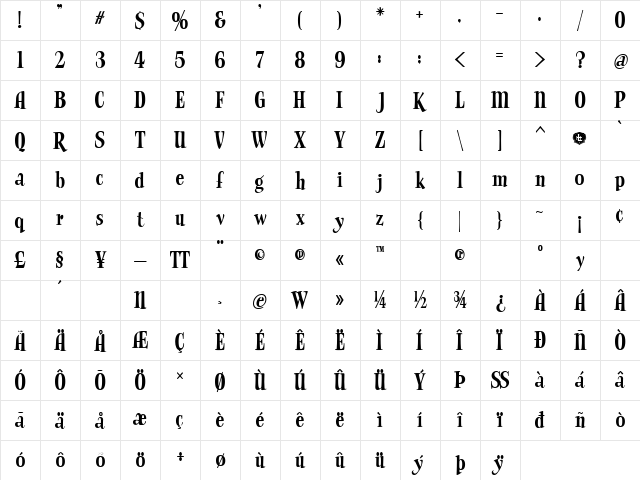
LHF Wade Grotesque Regular
Design Context for LHF Wade Grotesque
LHF Wade Grotesque is a composed and adaptable typeface that performs quietly and consistently across a wide range of design contexts.
Pro Tip: Use LHF Wade Grotesque in both headline and body roles to test its range before committing to a single application.